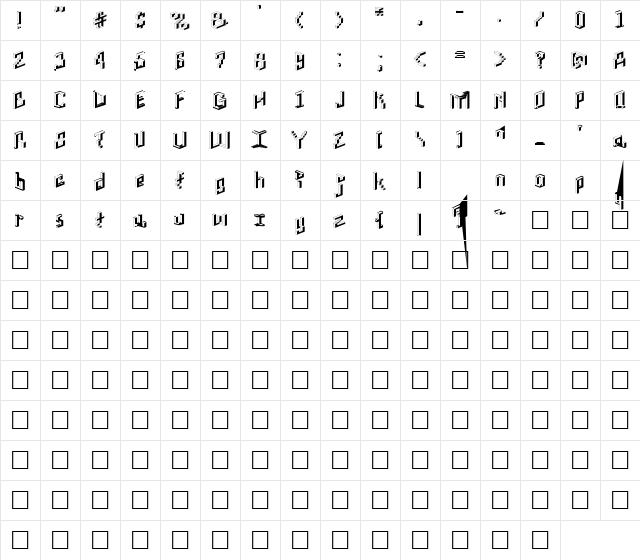
Toit RegularA
Design Context for Toit Typeface
Toit is a composed and adaptable typeface that performs quietly and consistently across a wide range of design contexts.
Pro Tip: Pair Toit with a font of contrasting weight or personality to build a more expressive typographic hierarchy.